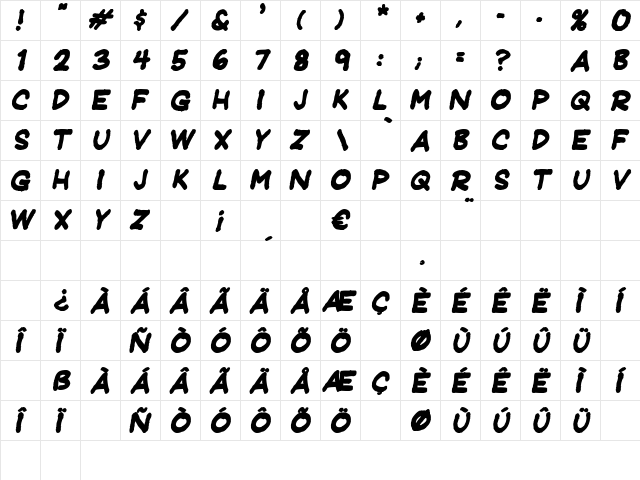
JeffreyPrint JL Bold Italic
Design Context for JeffreyPrint JL Typeface
JeffreyPrint JL is a composed and adaptable typeface that performs quietly and consistently across a wide range of design contexts. The slanted form adds forward momentum and visual energy. Its bold stroke weight gives it real presence on the page.
Pro Tip: Try JeffreyPrint JL for annotation and caption copy alongside an upright companion — the contrast in angle creates a dynamic but ordered typographic system.